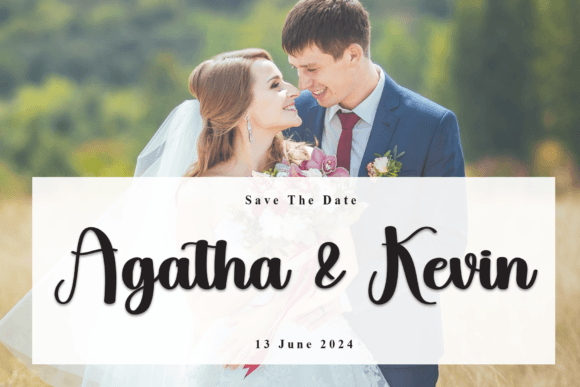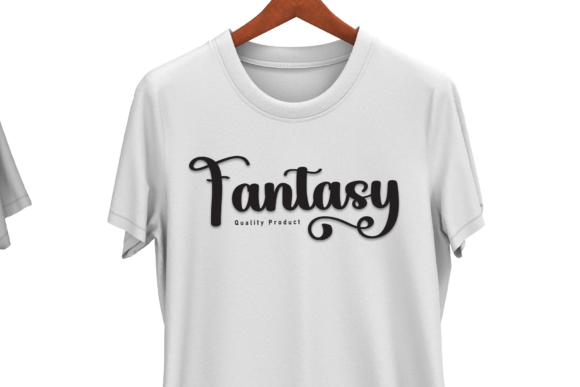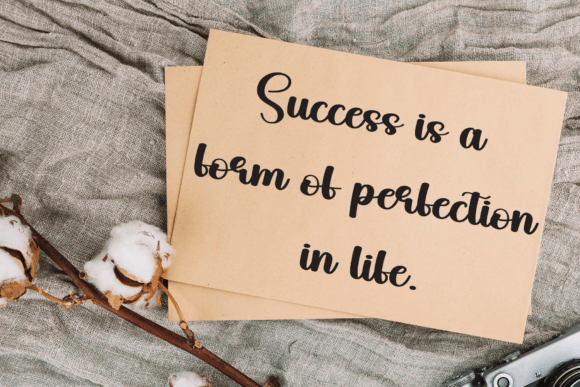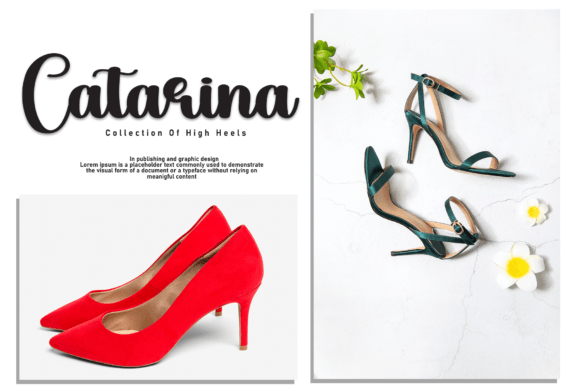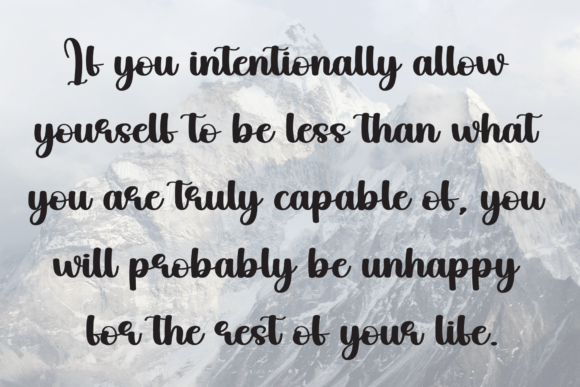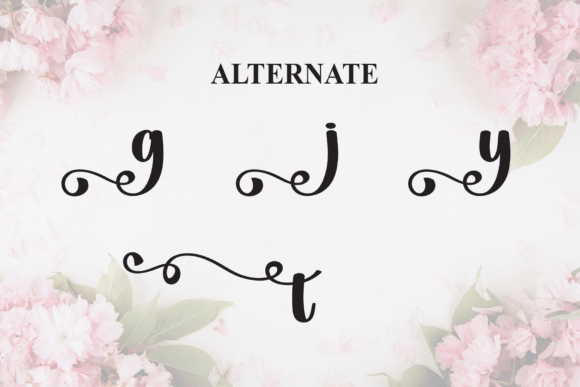
Discover the Enchanting Font: Adding a Touch of Whimsy to Your Designs
In the world of typography, fonts play a crucial role in conveying emotions and setting the tone for a design. If you’re looking for a font that exudes sweetness, friendliness, and a dash of playfulness, look no further than the Enchanting Font. This handwriting-inspired display font is designed to capture the essence of cuteness and fun, making it perfect for a wide range of design projects.
The Distinct Charm of Enchanting Font
The Enchanting Font boasts a unique charm that sets it apart from other fonts. Its handwriting-inspired design gives it a personal and intimate feel, making it ideal for projects that require a touch of warmth and personality. The font’s sweet and friendly vibes are infectious, adding a lively spark to any design. Whether you’re creating wedding invitations, personalizing cards, or working on a branding project, the Enchanting Font is sure to make your designs shine.
Perfect for Wedding Invitations and Personalized Cards
One of the font’s greatest strengths is its versatility. It’s perfectly suited for crafting beautiful wedding invitations, anniversary cards, and other special occasion greetings. The Enchanting Font’s playful and romantic feel makes it an excellent choice for couples looking to add a personal touch to their wedding stationery. Additionally, the font’s friendly and approachable vibe makes it ideal for personalizing cards, gift tags, and other paper crafts.
Bringing Fun and Whimsy to Your Designs
The Enchanting Font is not just limited to wedding invitations and cards. Its playful and lively feel makes it an excellent addition to any design project that requires a dash of fun and whimsy. Whether you’re creating posters, flyers, or social media graphics, this font is sure to add a spark of creativity and energy to your designs. The font’s engaging touch can transform typography into an expressive narrative, making your designs not just visually appealing but emotionally connective.
Key Features of the Enchanting Font
- Handwriting-inspired design: Gives the font a personal and intimate feel.
- Sweet and friendly vibes: Adds a lively spark to any design.
- Perfect for wedding invitations and personalized cards: Ideal for couples and crafters looking for a romantic and playful font.
- Versatile: Suitable for a wide range of design projects, from posters and flyers to social media graphics and branding projects.
- Emotionally connective: Helps create designs that resonate with your audience on an emotional level.
Tips for Using the Enchanting Font
To get the most out of the Enchanting Font, here are a few tips to keep in mind:
- Use it as a display font: The Enchanting Font is designed to make a statement, so use it as a display font to add emphasis and draw attention to your design.
- Experiment with colors: The font’s playful feel lends itself well to bright and bold colors, so don’t be afraid to experiment and find the perfect color combination for your design.
- Pair it with complementary fonts: To create visual interest and add depth to your design, pair the Enchanting Font with complementary fonts that share similar characteristics.
The Enchanting Font is a unique and versatile font that’s perfect for designers and crafters looking to add a touch of whimsy and fun to their designs. Its handwriting-inspired design, sweet and friendly vibes, and emotionally connective feel make it an excellent choice for a wide range of projects. Whether you’re creating wedding invitations, personalized cards, or social media graphics, the Enchanting Font is sure to bring a smile to your audience’s faces. So why not give it a try and see how it can transform your designs?